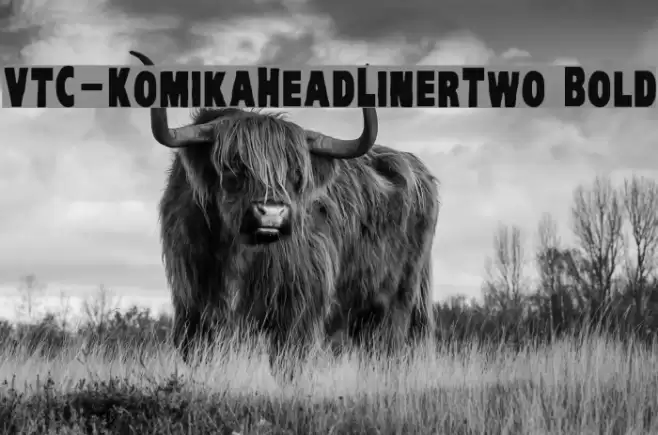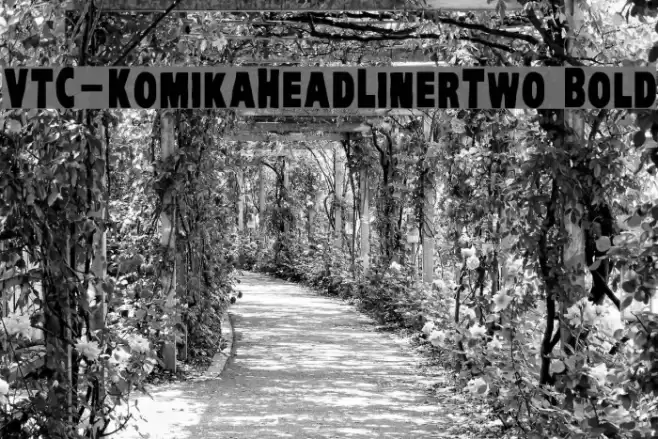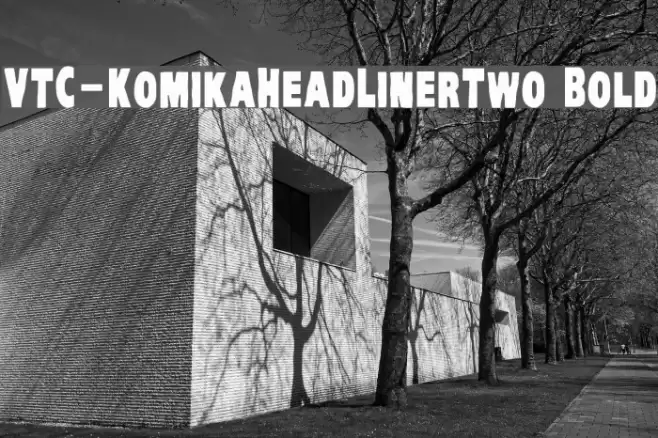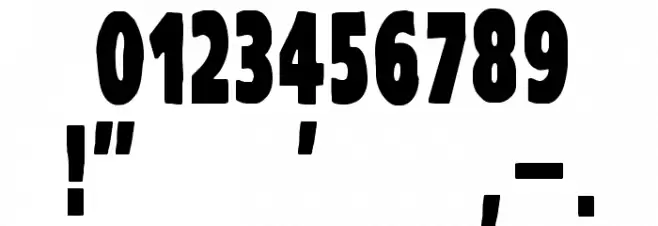
VTC-KomikaHeadLinerTwo Bold Font
VTC-KomikaHeadLinerTwo Bold Description
This bold and striking font features thick, heavy strokes that create a powerful visual impact. The characters are uniformly bold, with a slightly condensed appearance that enhances their presence. The uppercase letters are particularly robust, making them ideal for attention-grabbing headlines. The numbers and special characters maintain the same bold style, ensuring consistency across all text elements. The font's playful yet assertive design makes it suitable for projects that require a strong and dynamic visual statement.
A bold, condensed font with heavy strokes for impactful headlines from Uncategorized fonts.